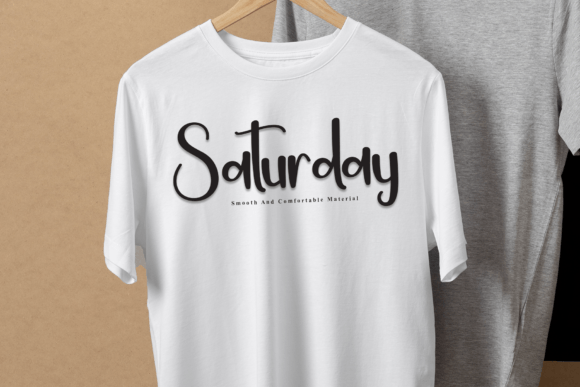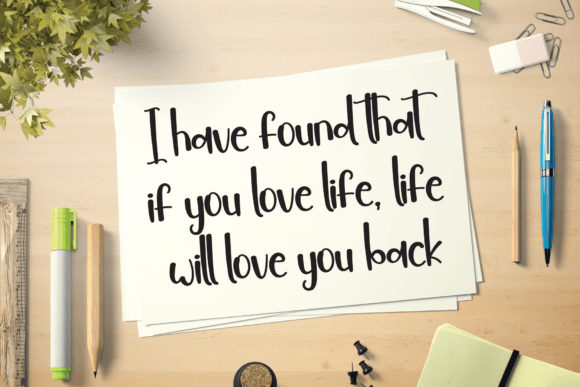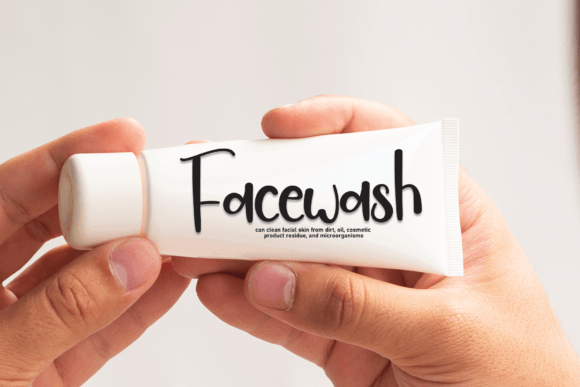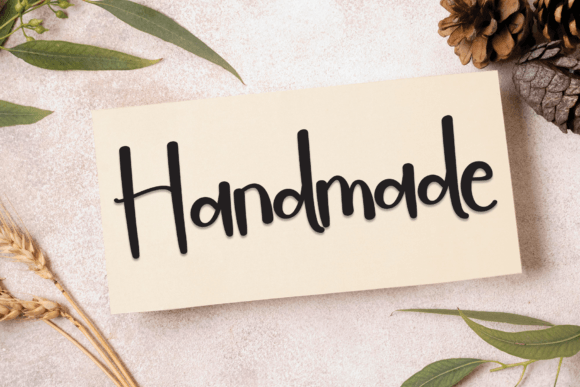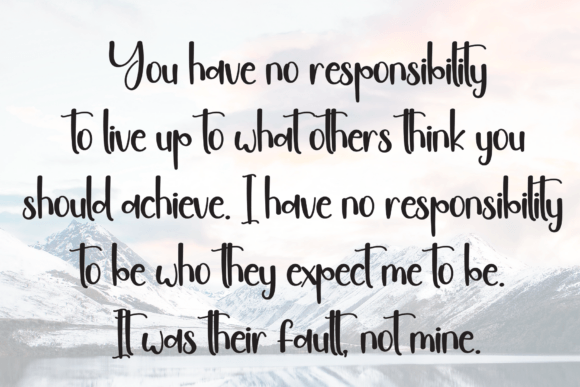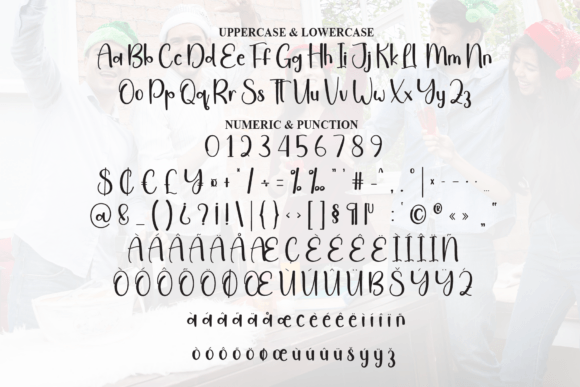
Gathering Font: A Friendly and Personal Handwritten Font for Your Creative Projects
Are you looking for a font that can add a special touch to your invitations, cards, or creative projects? Look no further than Gathering Font, a bold, handwritten font that exudes a warm and inviting feel. With its thick, flowing letters, Gathering Font is perfect for designers and crafters who want to add a personal touch to their work.
The Characteristics of Gathering Font
Gathering Font is a unique and eye-catching font that is characterized by its bold, handwritten letters. The font has a friendly and approachable feel, making it perfect for projects that require a personal touch. The thick, flowing letters give the font a sense of movement and fluidity, making it perfect for creating beautiful and elegant designs.
Uses of Gathering Font
Gathering Font is a versatile font that can be used for a wide range of creative projects. Here are some of the ways you can use Gathering Font:
- Invitations: Gathering Font is perfect for creating beautiful and elegant invitations for weddings, parties, and other special occasions.
- Cards: Add a personal touch to your greeting cards, thank-you cards, and other correspondence with Gathering Font.
- Creative Projects: Use Gathering Font to add a special touch to your creative projects, such as scrapbooking, journaling, and mixed media art.
- Branding: Gathering Font can also be used for branding and marketing materials, such as logos, business cards, and brochures.
Why Choose Gathering Font?
There are many reasons why you should choose Gathering Font for your creative projects. Here are a few:
- Unique and Eye-Catching: Gathering Font is a unique and eye-catching font that will set your projects apart from the rest.
- Easy to Read: Despite its bold and flowing letters, Gathering Font is easy to read and understand, making it perfect for body text and headlines.
- Versatile: Gathering Font can be used for a wide range of creative projects, from invitations and cards to branding and marketing materials.
- Personal Touch: Gathering Font adds a personal touch to your projects, making them feel more special and unique.
Tips for Using Gathering Font
Here are a few tips for using Gathering Font in your creative projects:
- Use it Sparingly: Gathering Font is a bold font, so use it sparingly to avoid overwhelming your design.
- Pair it with Other Fonts: Pair Gathering Font with other fonts to create a unique and interesting contrast.
- Have Fun: Most importantly, have fun with Gathering Font and experiment with different techniques and ideas.
Gathering Font is a bold, handwritten font that looks friendly and personal. Its thick, flowing letters give a warm and inviting feel, making it great for adding a special touch to invitations, cards, or any creative project. With its versatility, ease of use, and unique characteristics, Gathering Font is perfect for designers and crafters who want to add a personal touch to their work. So why not give Gathering Font a try and see how it can elevate your creative projects?
Whether you’re a designer, crafter, or DIY enthusiast, Gathering Font is a great addition to your font collection. So go ahead, get creative, and see what amazing projects you can create with Gathering Font!